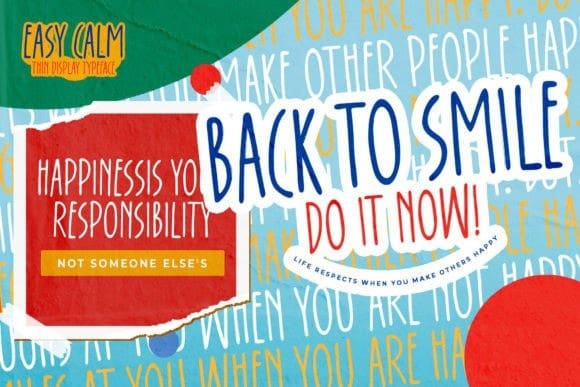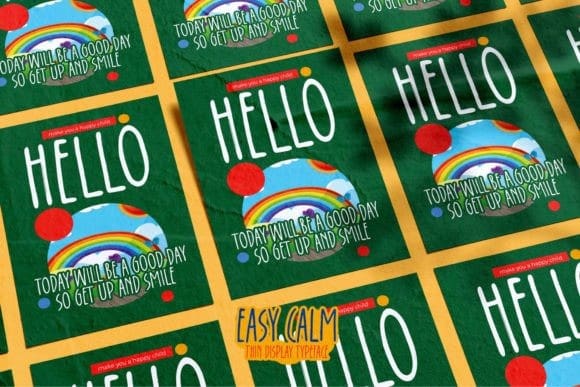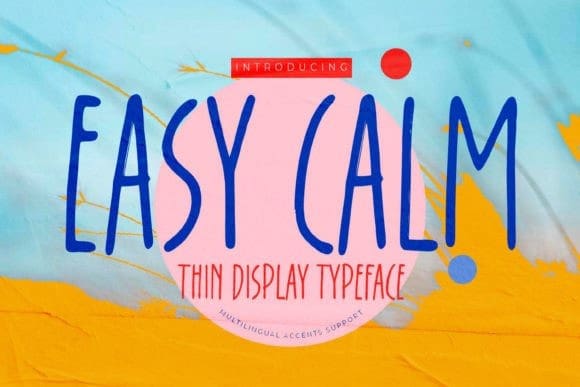
Easy Calm Font
Easy Calm Font is a thin display font featuring a natural texture, classy style, and a clear dramatic movement.
Easy Calm is great for your next creative projects such as logos, printed quotes, invitations, cards, product packaging, headers, watermark on photography, advertisements, product designs, stationery, wedding designs, labels, product packaging, special events, or anything that needs handwriting taste.
This typeface has charming, authentic, and relaxed characters that will add a more natural look to your text.